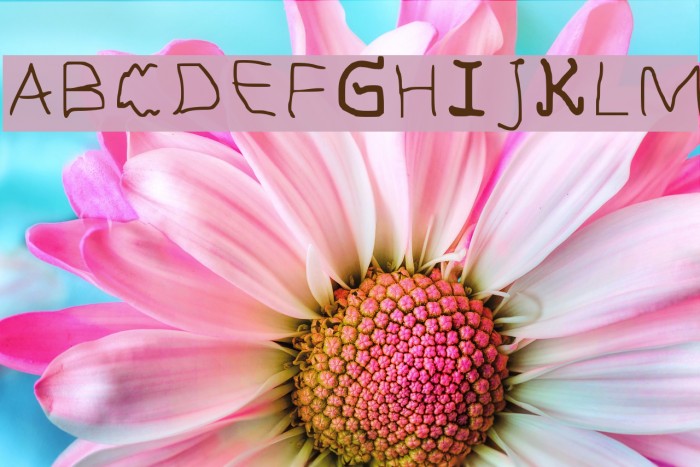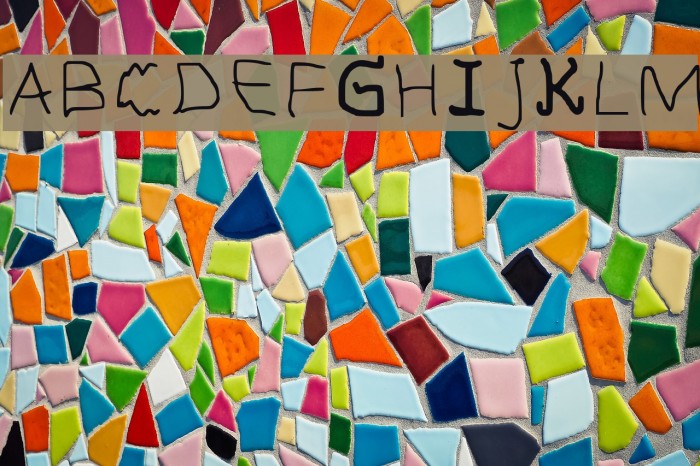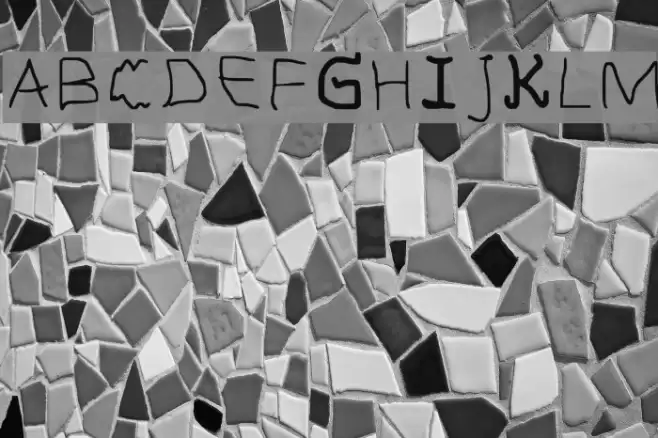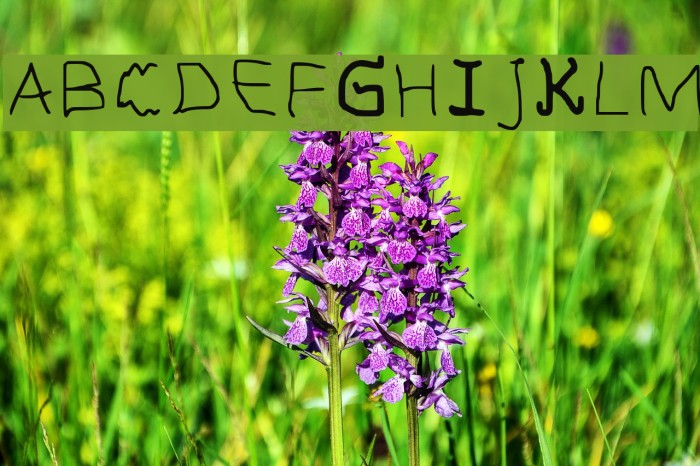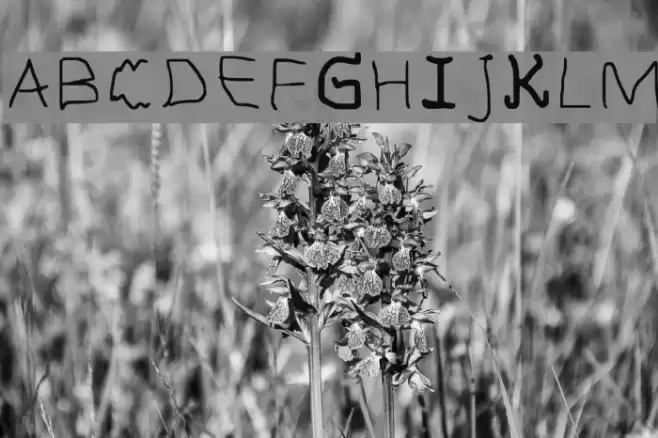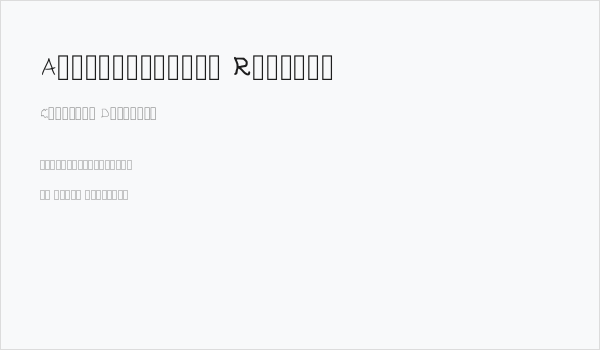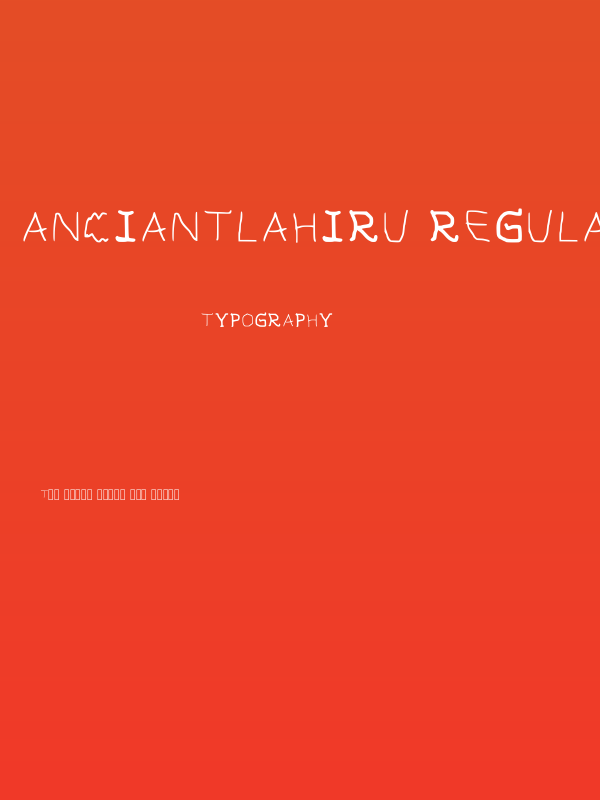
Anciantlahiru Regular Font
Anciantlahiru Regular Description
This font features a unique, hand-drawn style with irregular strokes and a slightly rough texture, giving it an organic and rustic appearance. The uppercase letters display a playful yet sophisticated character, with varying stroke widths that add a dynamic feel. The overall design is reminiscent of ancient scripts, providing a sense of history and tradition. The font's distinctiveness lies in its imperfect lines and curves, which convey a sense of authenticity and warmth. It is particularly suitable for projects that require a touch of personality and a handcrafted look.
AncientLahiru
| Overall Style | Rustic, Handcrafted |
| Use Case | Logos, Invitations, Packaging |
| Proposed Projects | Ideal for branding, packaging, invitations, and any project seeking a handcrafted, historical touch. |